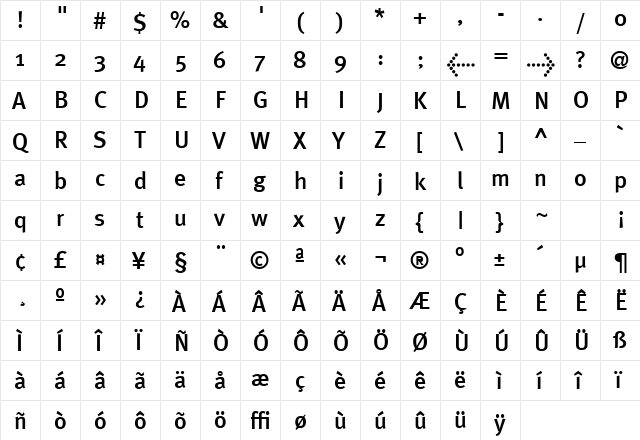
MetaPlusMedium-Roman Regular
Design Context for MetaPlusMedium-Roman Typeface
MetaPlusMedium-Roman offers clean, dependable letterforms without strong stylistic allegiance, making it a practical choice for designers who need flexibility.